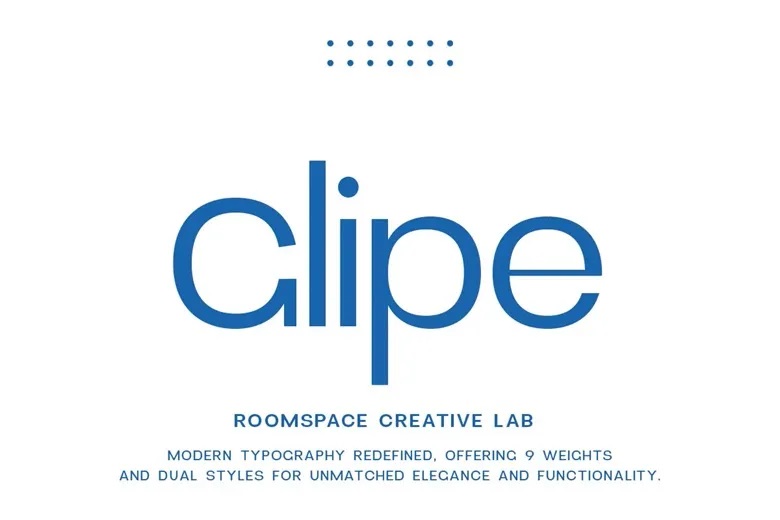
Glipe Font Family
A modern sans-serif font called Glipe, made for maximum versatility. Glipe has 18 styles, including Thin, Ultralight, Regular, Bold, Heavy, Extra Black, Black and extra variants called Oblique for each weight. Thanks to its wide variation, Glipe is great for both simple, delicate text and attention-grabbing title text.
Each of Glipe’s finely crafted styles is available in Thin, Extra Light, Light, Regular, Medium, Semi Bold, Bold, Extra Bold and Black and the fonts are available in both a standard version and an oblique one. When making minimalist branding, professional presentations, elegant websites or editorial works, Glipe easily fits your creative needs.
The straight lines, elegant proportions and many styles of Glipe give contemporary designers a whole new outlook on sans-serif type. With Glipe, you can design logos, branding, websites, packaging and headlines that are powerful and will last. Simply download Glipe to take advantage of its artistic and complete range of fonts.
Glipe Sans Serif Font Family